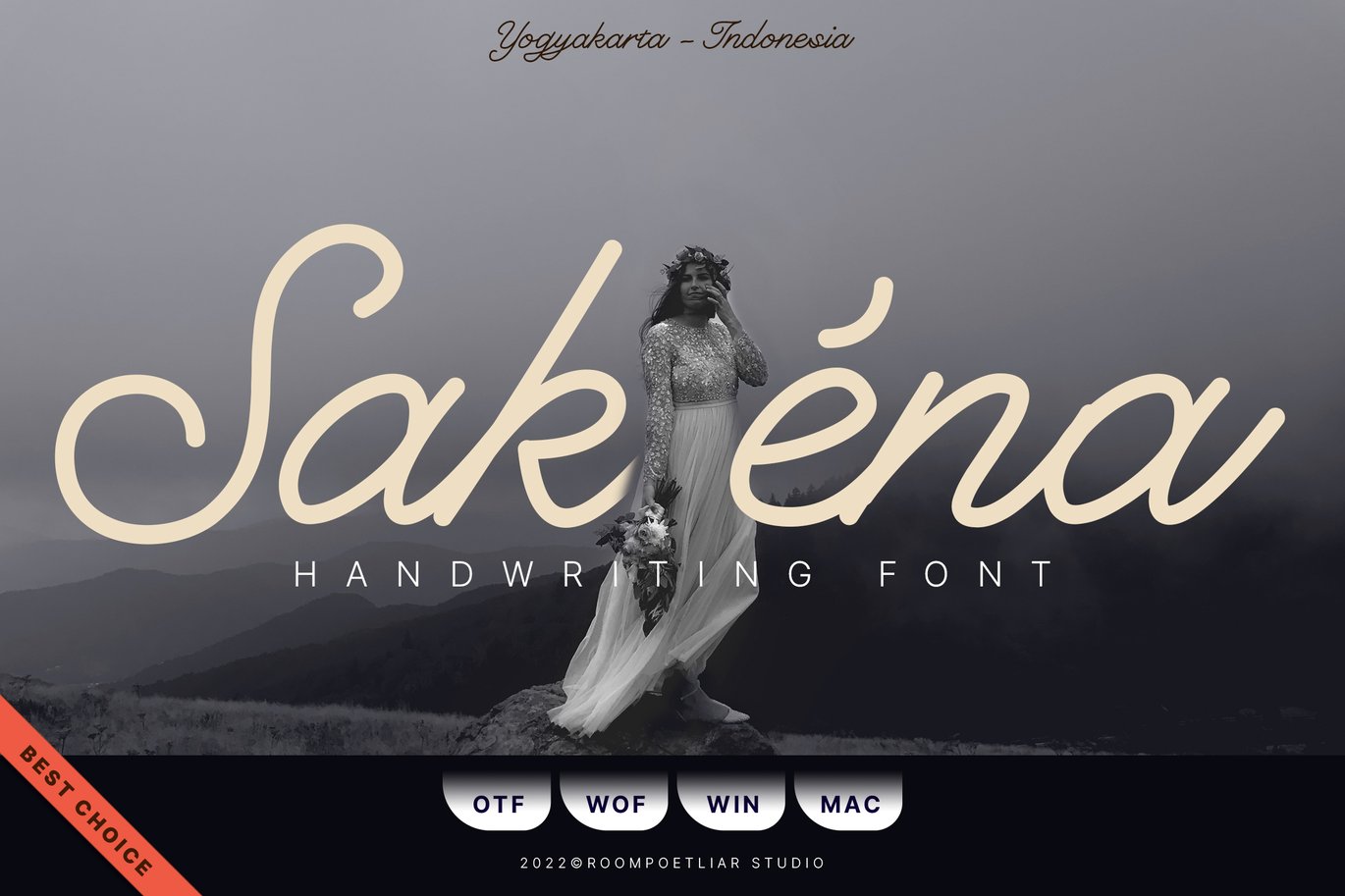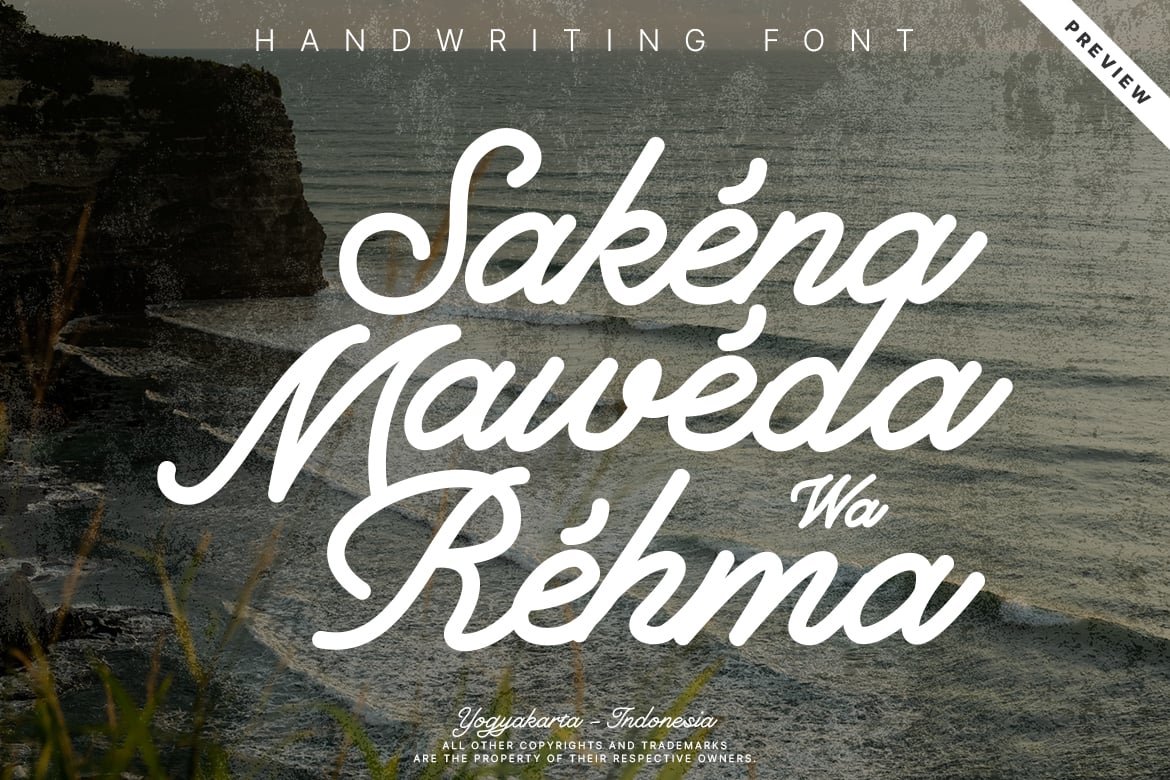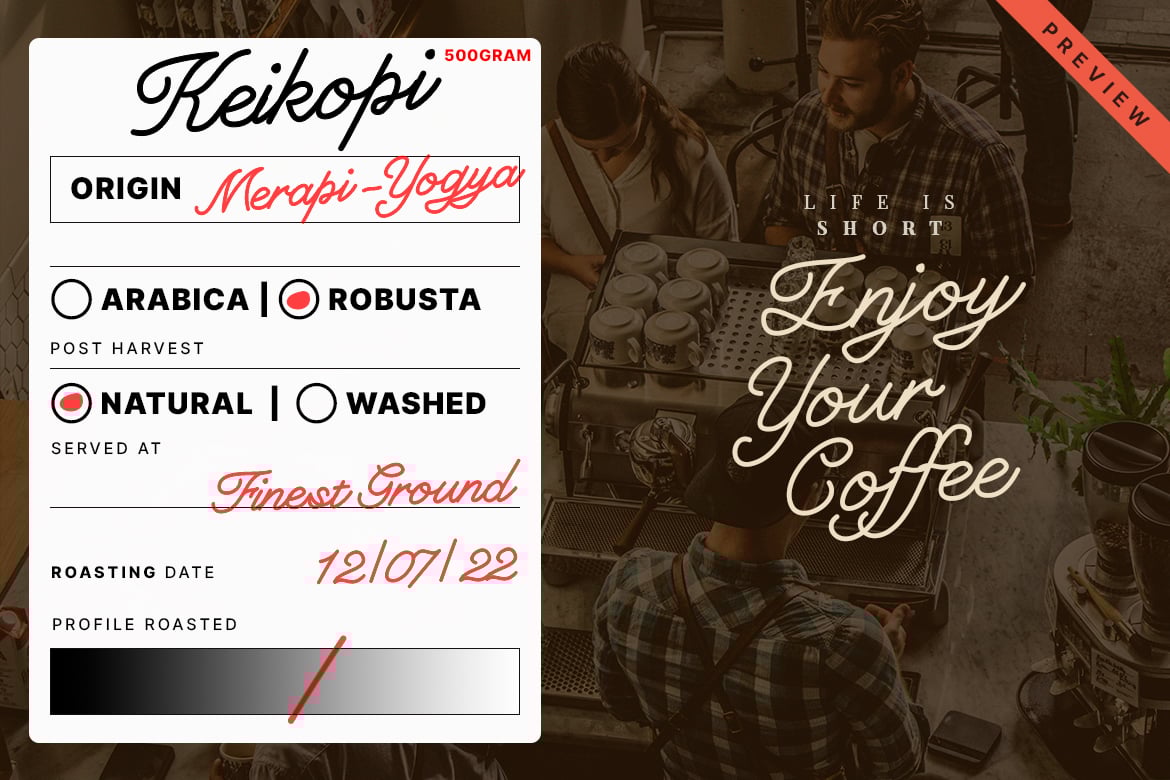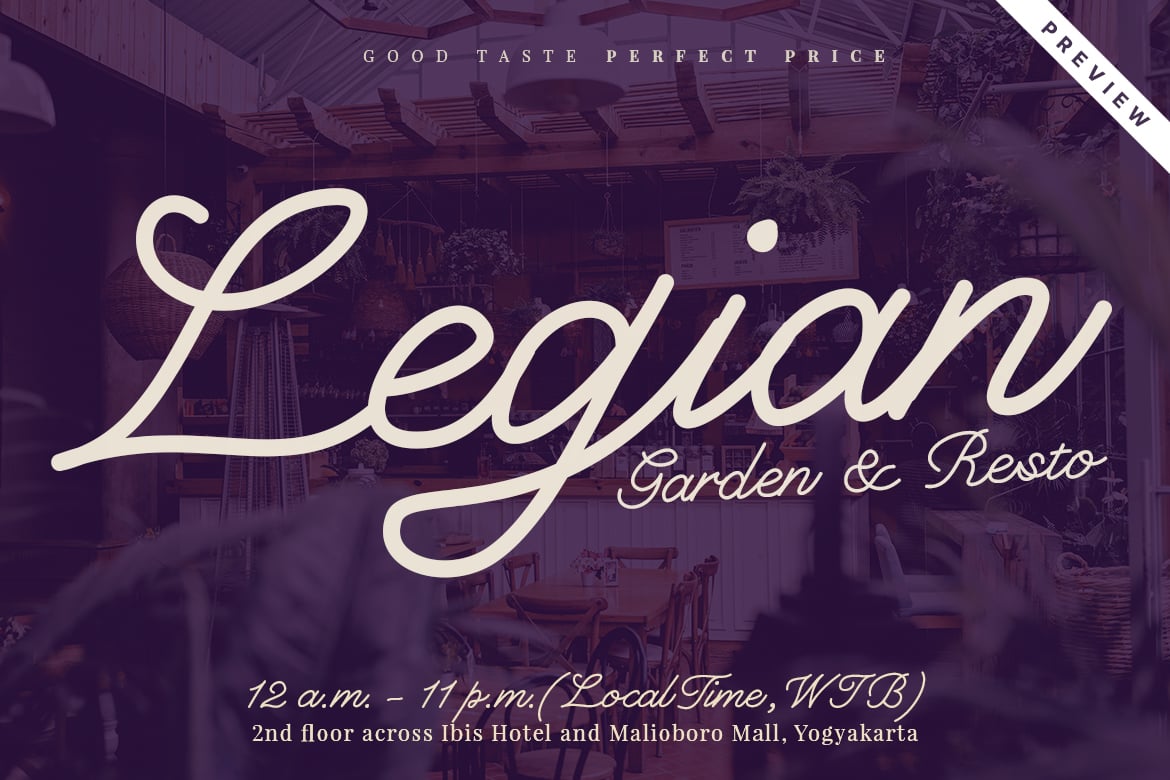
Sakéna Handwriting Font
Sakéna Handwriting Font elegant and stunning script font. It features a vintage style and will add a unique feel to your upcoming projects. Get inspired by its authentic feel and use it to create gorgeous wedding invitations, beautiful stationary art, eye-catching social media posts, and elegant greeting cards.
- Basic Latin A-Z and a-z, Numbers, and Punctuation
- 127 glyphs & 57 languages